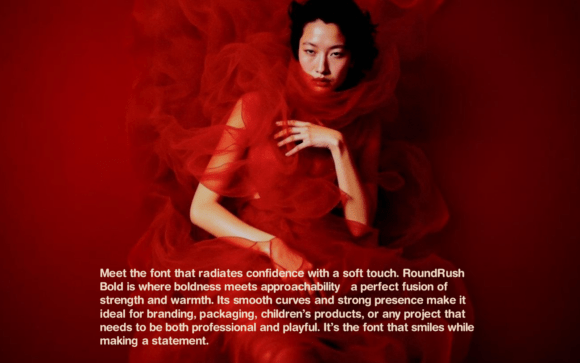
Introduction to Round Rush Font
As a designer, you’ve probably experienced that moment of pure excitement when you stumble upon the perfect font for your project. The one that makes everything click, and your creative vision comes alive. For me, that moment happened when I discovered the Round Rush Font – a game-changing design resource that has been making waves in the creative community.
With its unique blend of strength and warmth, the Round Rush Font is the perfect addition to any project that requires a professional yet playful touch. Whether you’re designing branding materials, packaging, or children’s products, this font is sure to make a lasting impression. Its smooth curves and strong presence make it an ideal choice for designers who want to convey confidence without sacrificing approachability.
Key Features of Round Rush Font
- Round Rush Font is a high-quality design resource ideal for creative projects, offering a unique and stylish aesthetic.
- Perfect for use in a variety of creative projects, from logos and branding to digital art and graphic design.
Honest Review: Round Rush Font
One of the things that works well with Round Rush Font is its high quality and unique aesthetic. It’s perfect for creating a cohesive look in your design project, especially when paired with a transparent background. The font’s rounded edges give it a friendly and approachable feel that’s sure to engage your audience.
Here are some of the things I like about Round Rush Font:
- High quality design that’s perfect for print or digital projects
- Unique aesthetic that’s sure to stand out in your design
- Works well with transparent backgrounds for a clean and modern look
Of course, no font is perfect, and Round Rush Font has some limitations:
- Only comes in a limited number of weights and styles
- May not be suitable for projects that require a more formal tone
Overall, I’m impressed with the Round Rush Font and would recommend it to designers looking for a high-quality, free download font for their creative projects.
Round Rush Font
The Round Rush Font is a versatile design resource that can elevate any creative project. With its high-quality design and transparent background, it’s perfect for adding a touch of elegance to your work.
To get the most out of the Round Rush Font, experiment with different font sizes, colors, and combinations to create unique and eye-catching designs.
Common Use Cases for Round Rush Font
The Round Rush Font is perfect for a variety of creative projects, including graphic designs, logos, business cards, and more. It’s also a great choice for presentations, documents, and websites.